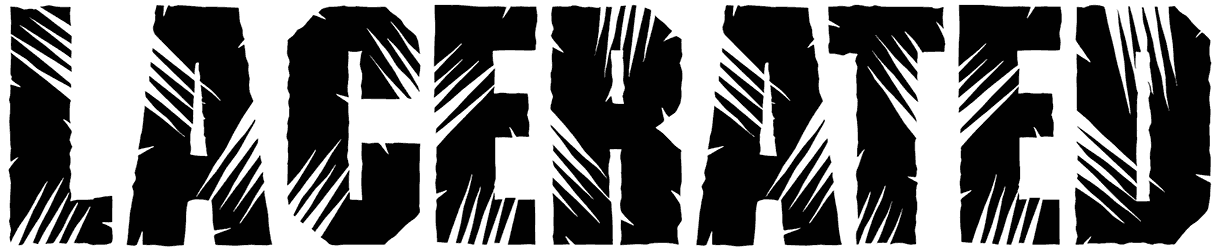
Lacerated Font
While attracting the attention of the audience is getting harder every moment, an all-caps, tiger font such as Lacerated would really help you to boost the visibility of your visual content, like movie posters, illustrations, blog posts, flyers, and gift cards. If establishing a sense of eerie, momentum, spooky, and jauntiness really matters to you, don’t hesitate and pick up this decorative font.
– Contextual alternates*
– Accented characters
– Fractions
– Ligatures / Discretionary ligatures* If you’re unfamiliar with contextual alternates, they make the typed word look a little more organic with letters substituted for alternates. For example, typing two of the same letter/number will produce different versions of that letter glyph.